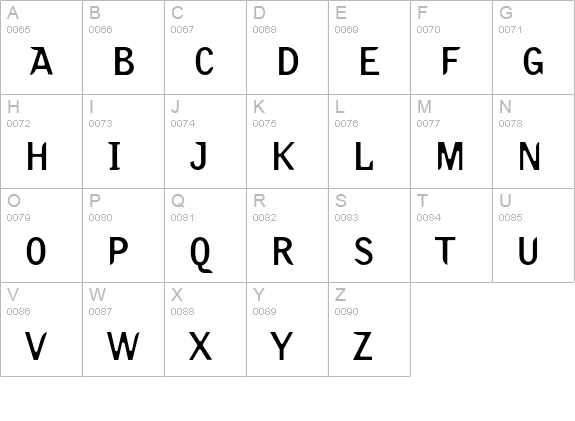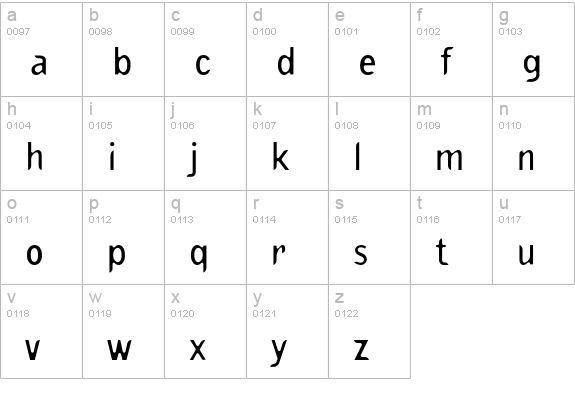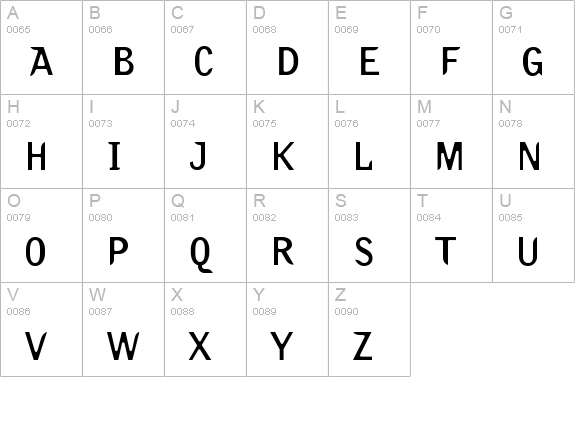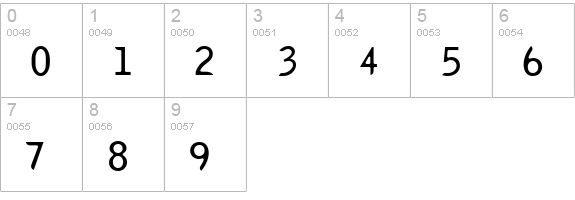
Truth-Normal is the standard, neutral variant in the Truth typeface family \xE2\x80\x94 well suited to general body text, paragraphs, and standard typographic work.
Introducing Truth-Normal font, a stunning typeface that effortlessly balances elegance and simplicity. With its sleek lines and refined curves, this font is perfect for adding a touch of sophistication to any design project. Truth-Normal font is the epitome of versatility, making it suitable for a wide range of applications. Whether you're creating a logo, designing a website, or crafting a brochure, this font will elevate your work to new heights. Its clean and legible letterforms ensure readability, while its subtle details add a hint of personality and charm. But what sets Truth-Normal font apart is its availability. This remarkable typeface can be freely downloaded at FontsMarket.com, allowing designers and enthusiasts alike to access its full potential without any cost. This means that you can bring your creative visions to life without worrying about breaking the bank. Furthermore, the convenience of freely accessing Truth-Normal font at FontsMarket.com provides an unparalleled opportunity to explore its various weights and styles. From light and airy to bold and impactful, this font offers a range of options to suit any design aesthetic. Don't miss out on the chance to enhance your projects with Truth-Normal font's timeless beauty. Download it for free today at FontsMarket.com and embark on a typographic journey that will captivate your audience and set your work apart from the rest.